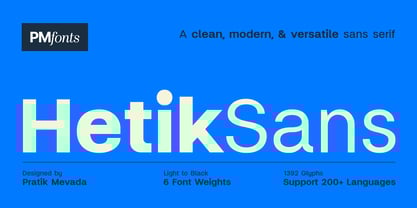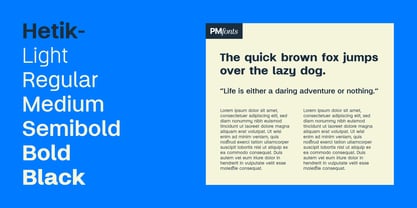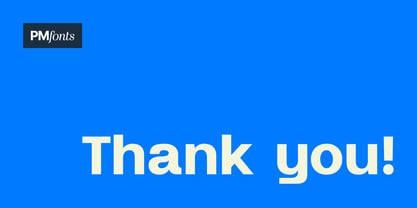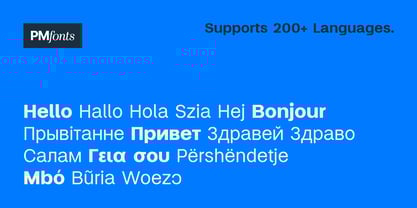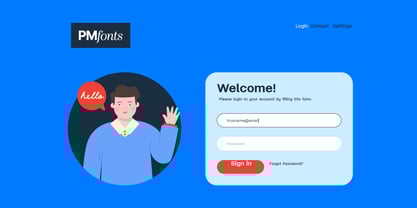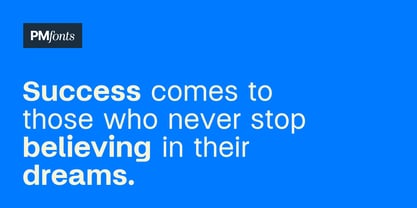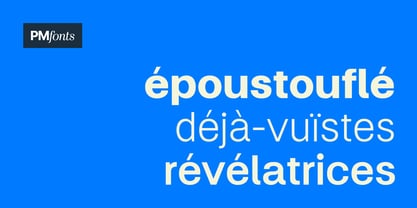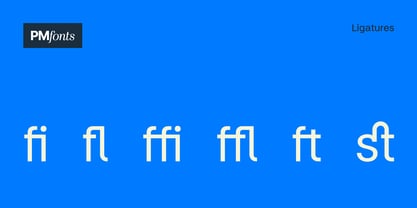
Hetik
by Pmfonts
The Hetik Font Family was designed by Pratik Mevada and published by Pmfonts. Hetik contains 6 styles and family package options. More about this family
Hetik is a clean, modern, and versatile sans serif font family designed with UI/UX designers, branding studios, and web creatives in mind. With 6 carefully crafted styles — from Light to Black — it brings clarity, balance, and personality to any project.
Built for performance, Hetik features 1392 Glyphs and supports over 200 languages with extended Latin, Greek, and Cyrillic glyph sets, plus IPA for linguists and educators. Whether you're working on interfaces, logos, print layouts, or mobile apps, Hetik delivers crisp readability and a refined typographic voice.
Make your next design look smart, modern, and reliable — with Hetik.
Designers: Pratik Mevada
Foundry: Pmfonts